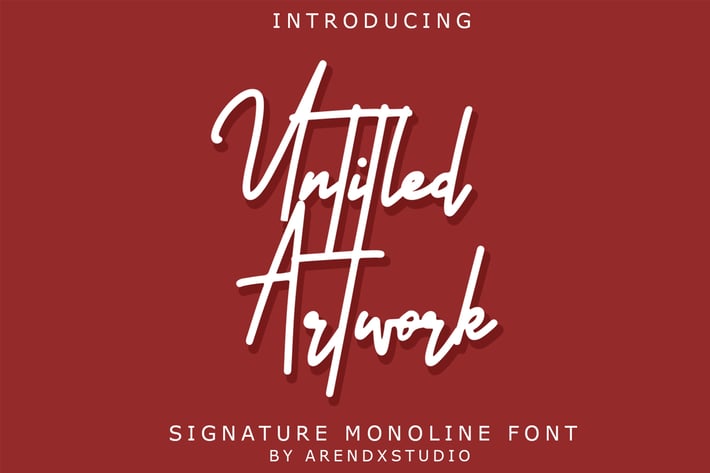
Untitled Artwork Signature Font
Introducing our newest Untitled Artwork Signature
Untitled Artwork Signature is made as elegant as possible for the use of your design project Untitled Artwork offers a variety of design projects, including logos & amps, branding, wedding designs, social media posts, advertisements, product designs, magazines and more.